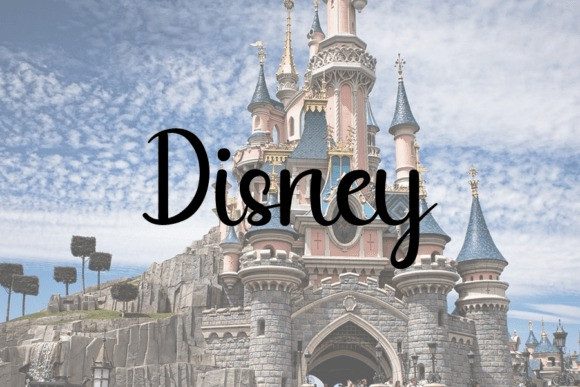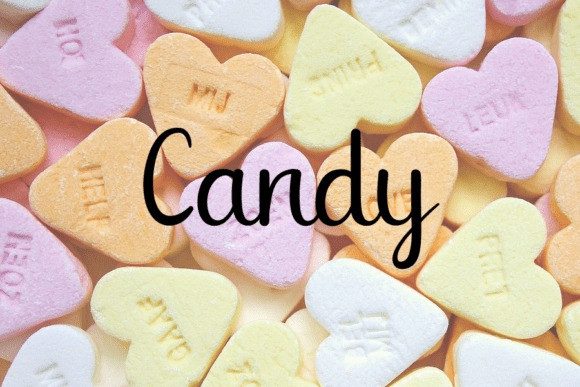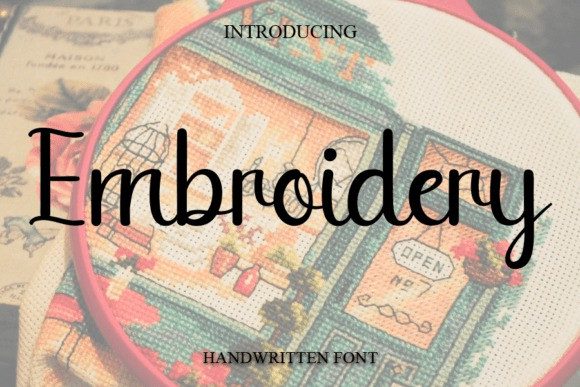
Embroidery Handcrafted Font
Embroidery Handcrafted Font is a font that exudes softness and elegance. With graceful strokes and a feminine touch, this font will elevate any design project to the highest level, be it branding, titles, wedding designs, invitations, signs, logos, labels, and more!